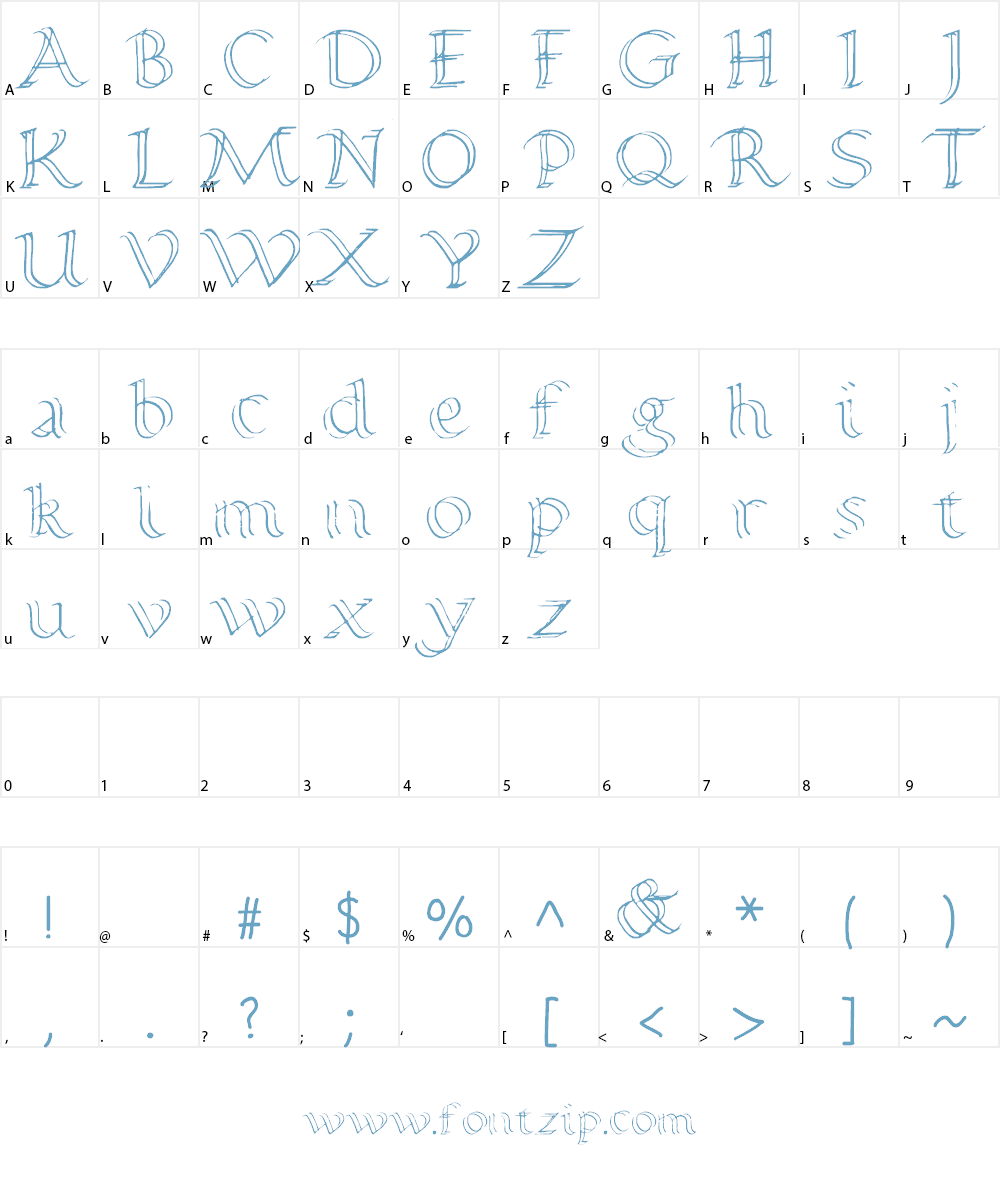
Calligraphy is an ancient writing technique using flat edged pens to create artistic lettering using thick and thin lines depending on the direction of the stroke. I always wanted to have a go at this creative art form so I created a version for my own personal use. It turned out better than I had expected so I also created a new typeface called Calligraphy Pen.